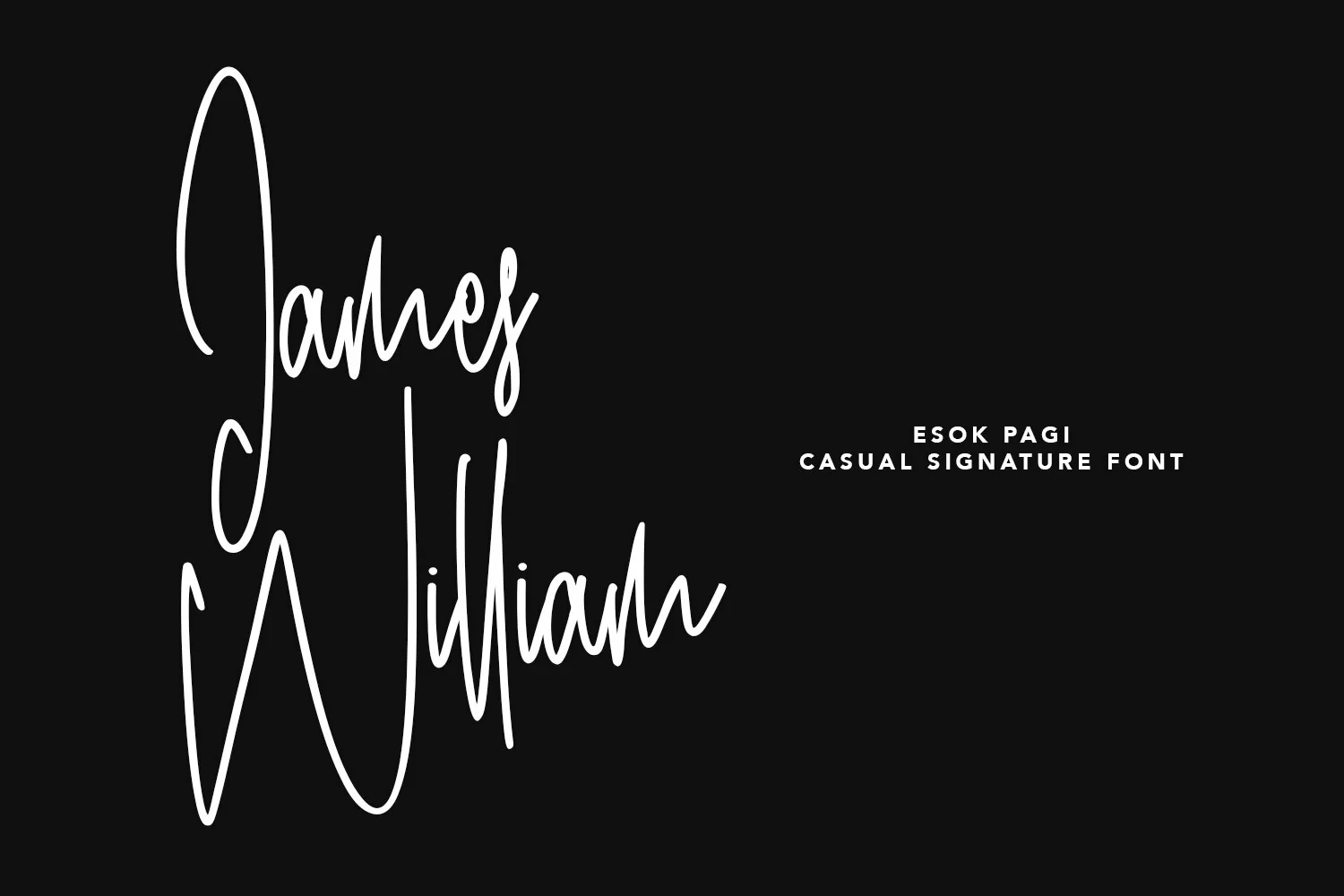
Give your designs an authentic handcrafted feel. "Esok Pagi" is perfectly suited to signature, stationery, logo, typography quotes, magazine or book cover, website header, clothing, branding, packaging design and more.